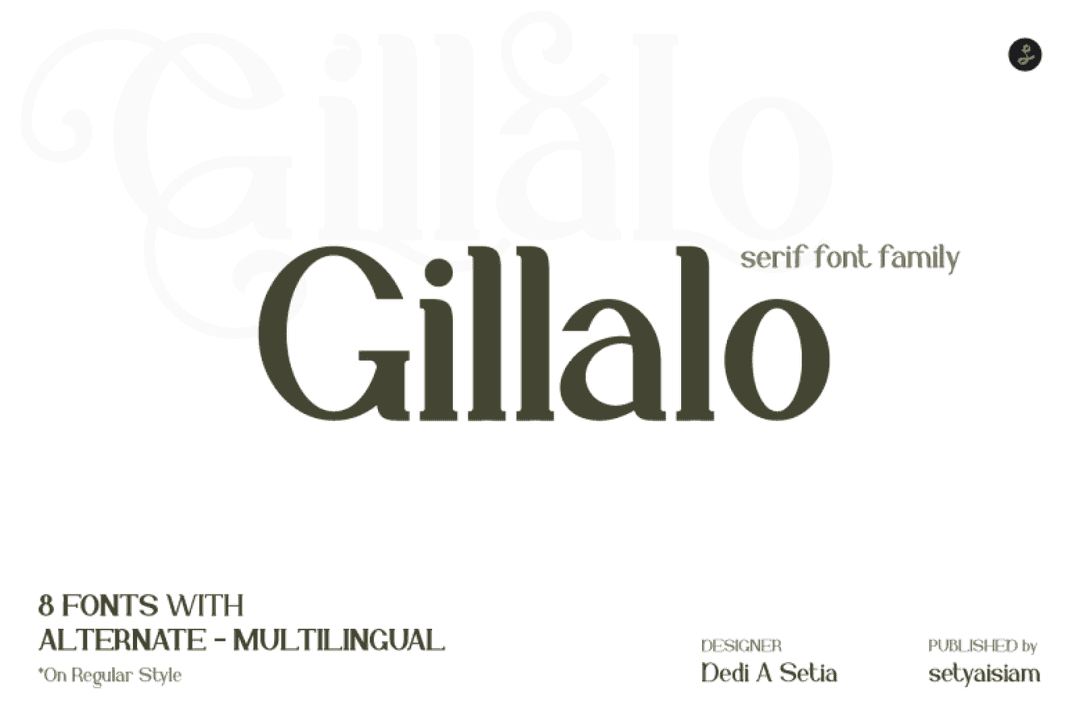
Discover Gillalo Font, part of the Serif collection—a versatile and unique font perfect for adding a personal touch to your projects. Download it for free and enjoy crafting designs with style, from invitations to social media posts. This font is available exclusively for personal use, giving you the freedom to create without limits. Unlock your creativity with Gillalo Font today!
Gillalois is an elegant serif typeface that would be perfect for any design project where you want to grab people’s attention! Due to the high readability and clean lines, it is ideal for use in branding of brochures greeting cards posters quotes stationery designs headers for blogs and many more.